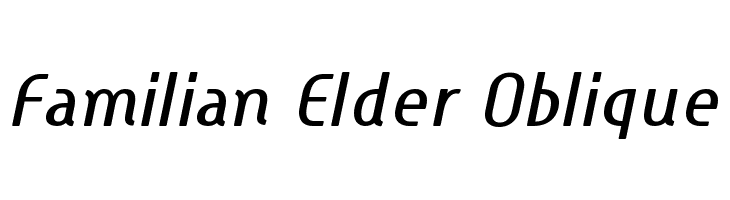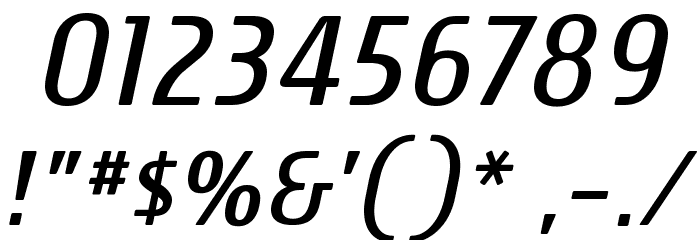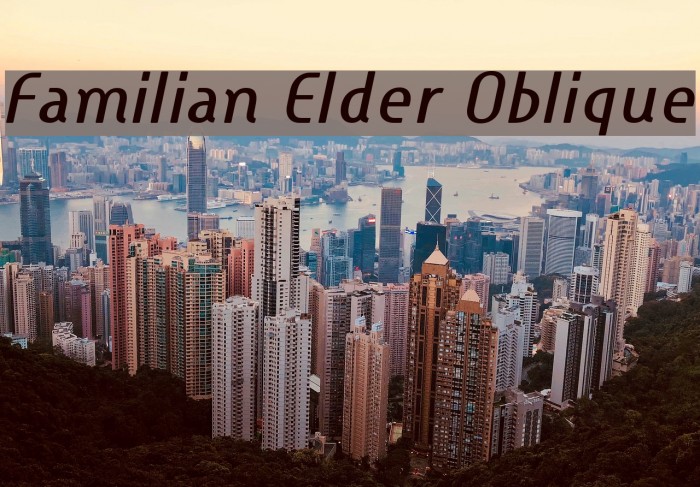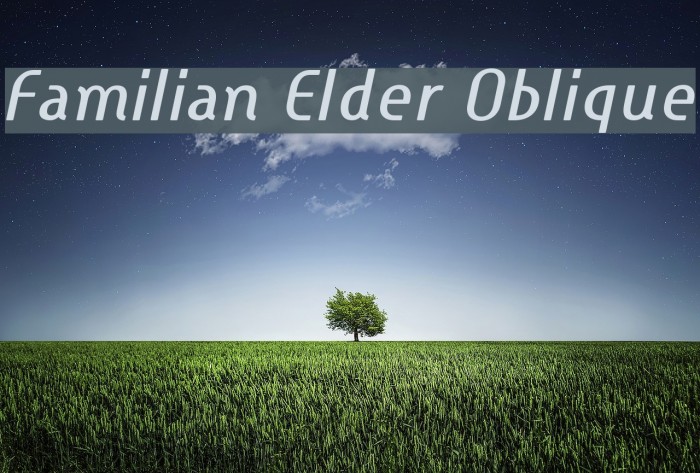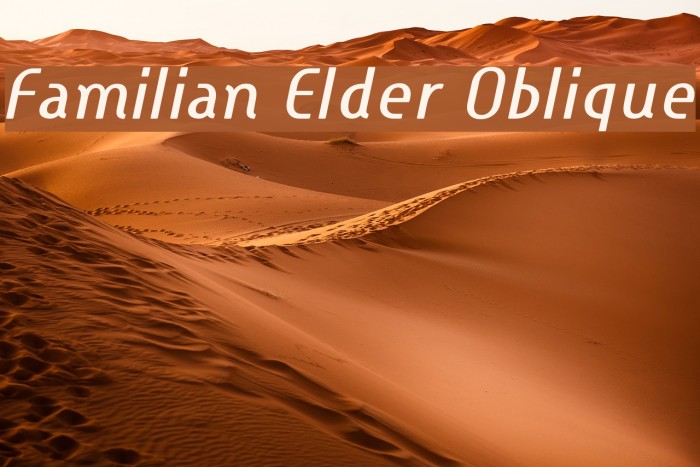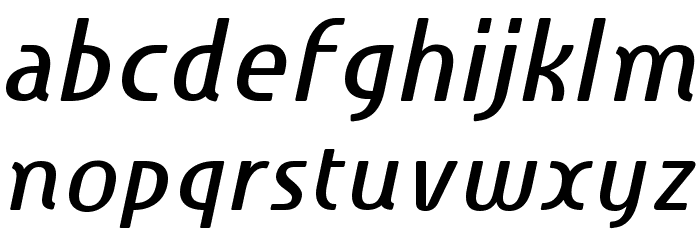
Familian Elder Oblique Font
Familian Elder Oblique Description
This font features a sleek and modern design with a slight oblique slant, giving it a dynamic and forward-moving appearance. The characters are well-proportioned with a consistent stroke width, providing a clean and professional look. The uppercase letters are bold and assertive, while the lowercase letters maintain a smooth and approachable style. The numerals are clear and easy to read, making them suitable for various applications. Special characters are included, enhancing its versatility. Overall, this font combines elegance with functionality, making it ideal for contemporary design projects.
A modern, oblique font with clean lines and a dynamic style from Uncategorized fonts.
- Proposed Projects: Ideal for branding, advertising, digital media, and editorial design.